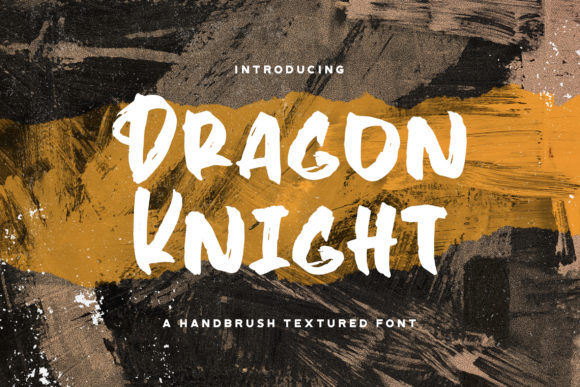
15 Paint Brush Font Textured for Your Beautiful Style Design
Many designers use paint brush font to produce stylish and artistic images. One brush stroke of paint can give an artistic, elegant, and expensive impression at the same time. If you are interested in similar designs and want to expand your creativity with a more artistic look, just like your brand. Then, this article is for you!
15 Paint Brush Font Will Make Your Design Stylish and Artistic
Without spending any longer, let’s take a look at the 15 recommendations below!
1. Hiruzen Exist Font
A textured brush font can make your wish come true to produce a unique, artistic design, but it doesn’t take away from the stylish impression. Hiruzen Exist is a typical brush font that is heavy and beautiful. This font would be suitable for display in a fancy, or oriental, design.
2. Osake Font
If you want to get a more oriental look, but also stylish then this paint brush font from Osake is the best. This design has the appearance of strong paint strokes, giving it an adorable, Japanese-style oriental theme. You can download it at StringLabs Creative.
3. Honuzima Font
One of the easiest brush font styles to find, like this Honuzima Font, makes it easier for you to apply to a variety of designs. If you look at the texture and bold design, this font is also suitable as a display font.
4. Firsta Font
Another brush font that looks beautiful and is suitable for display on your template is Firsta Font. This font has a clear brush texture, a bold font size, and a beautiful script font style. You can find this beautiful font at stringlabscreative.com.
5. Fany Brush Font
Fany Brush is one of the paint brush fonts that you will love if you need a design with a younger and wild theme. Each alphabet has a consistent emphasis, but a freestyle. It felt like you could write down whatever you wanted.
6. Dragon Knight Font
Do you like art brush fonts that have unique designs? Dragon Knight Font can be the best font choice for you. You can understand that this design from Dragon Knight Font will make a strong impression. The appearance is bold, with a collection of uppercase letters making this suitable for display on artistic templates.
7. Ronald Charis Font
As the name implies, Ronald Charis Font is a basic bold font type. This paint brush font style is even more interesting because there are brush strokes that make it simple but beautiful. You can buy this font on stringlabscreative.com website.
8. Amy Riyas Font
Amy Riyas gives a unique hand brush look. You can see it from the appearance of a classier marker texture. In addition, this kind of font will suit you in a chic, romantic, and feminine design.
9. Candy Qelling Font
Do you need something beautiful for your minimalist and luxurious design? This Candy Qelling will make yours perfect. As a brush font, the texture on Candy Qelling will give any design a minimalist and elegant look.
10. Blackwell Font
Just looking at it you can already realize that Blackwell is so beautiful. This elegant, light but luxurious brush font effect is suitable for you to apply to beautiful and romantic designs.
11. Raffles Bryant Font
Raffles Bryant is a brush script font that has a firm texture painting but is also stylish. Another interesting thing is that the style belonging to the Raffles Bryant font has beautifully detailed brush strokes. It gives the impression of luxury, and artistic at the same time.
12. Janji Dilan Font
Similar but not the same is the definition of a brush font. You may often see font designs like Janji Dilan Brush Font, but this one is much more unique. It has a rough, sans serif, and script font design. This font is even suitable for any designs.
13. Andovine Font
Andovine typeface hand brush is suitable as a display for your beautiful designs because of the unique uppercase design. Moreover, this paint brush font gives off a vintage and eccentric impression that you might find hard to find in any design.
14. Jeany Gifary Font